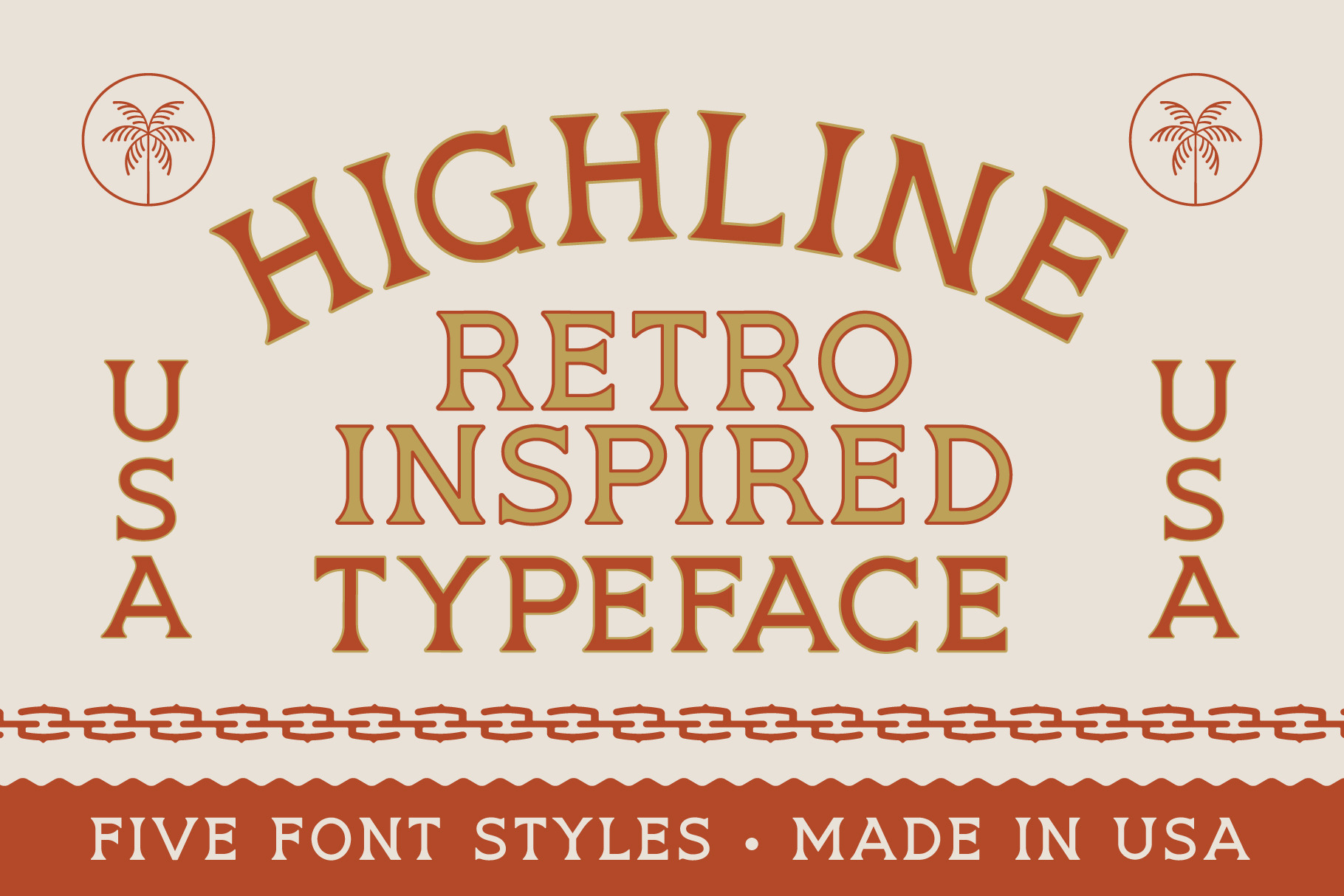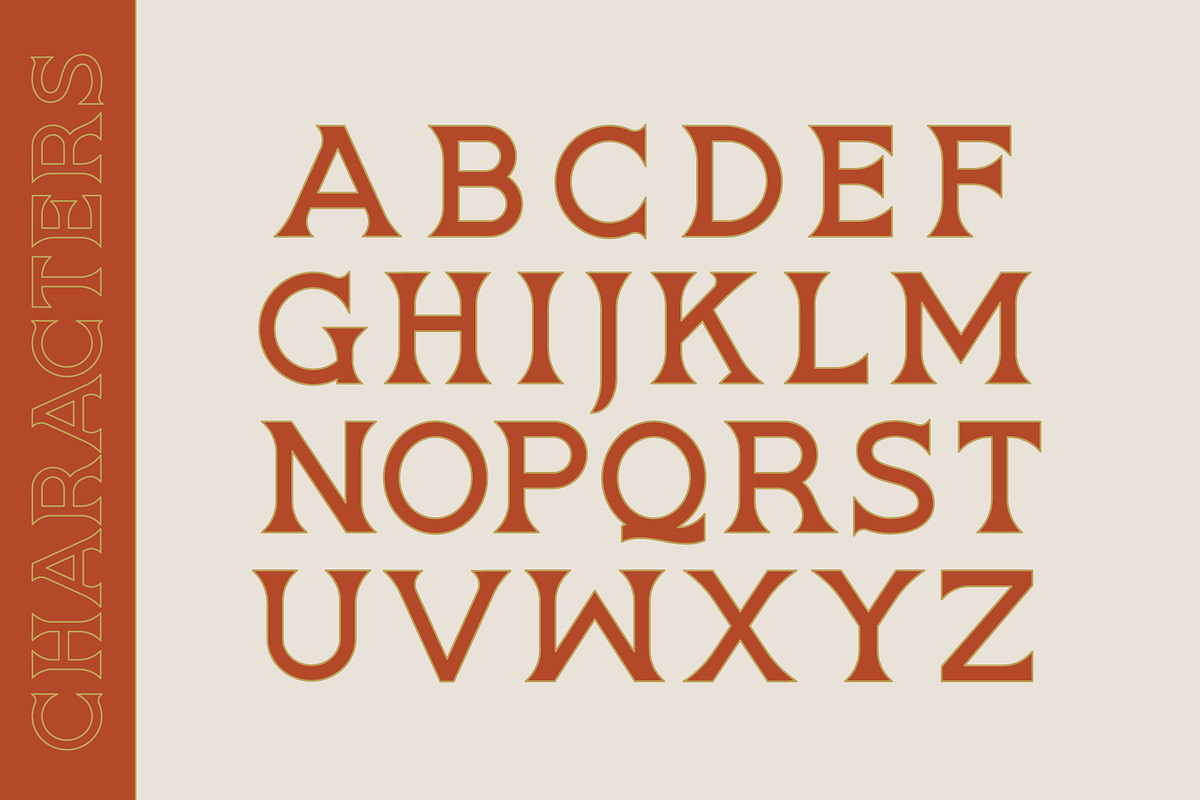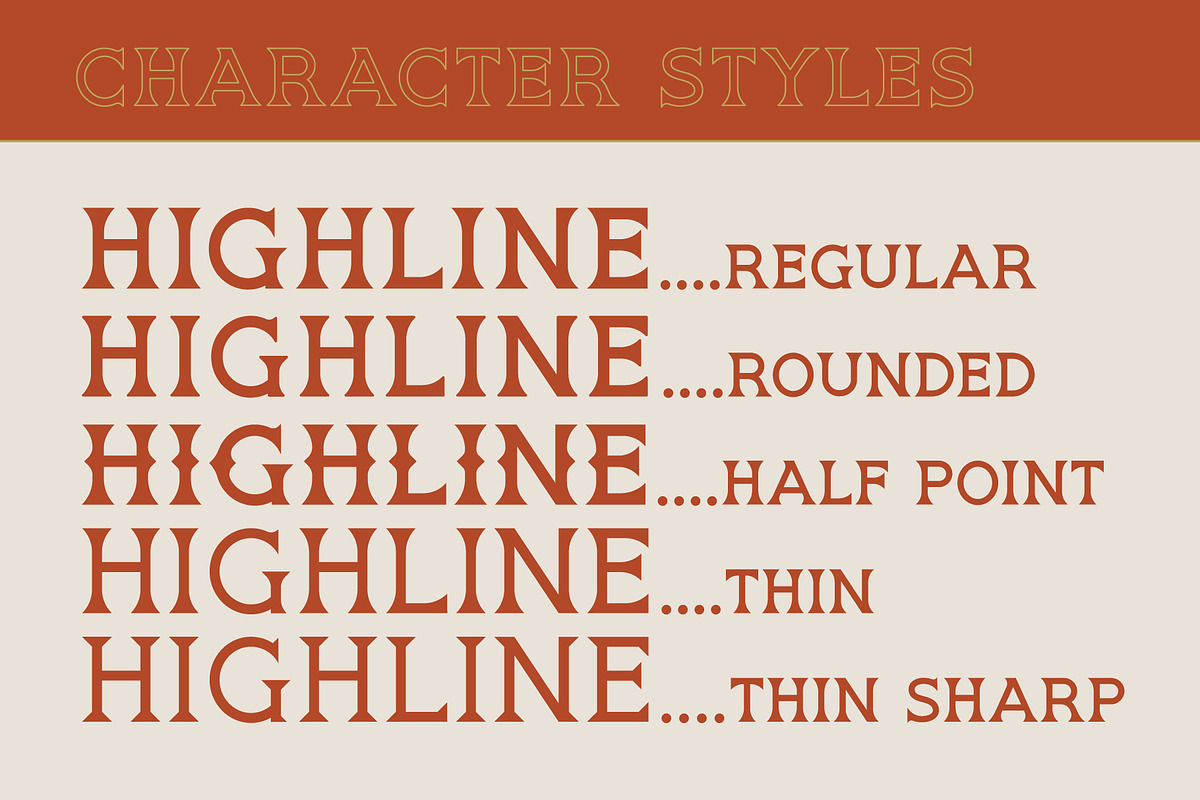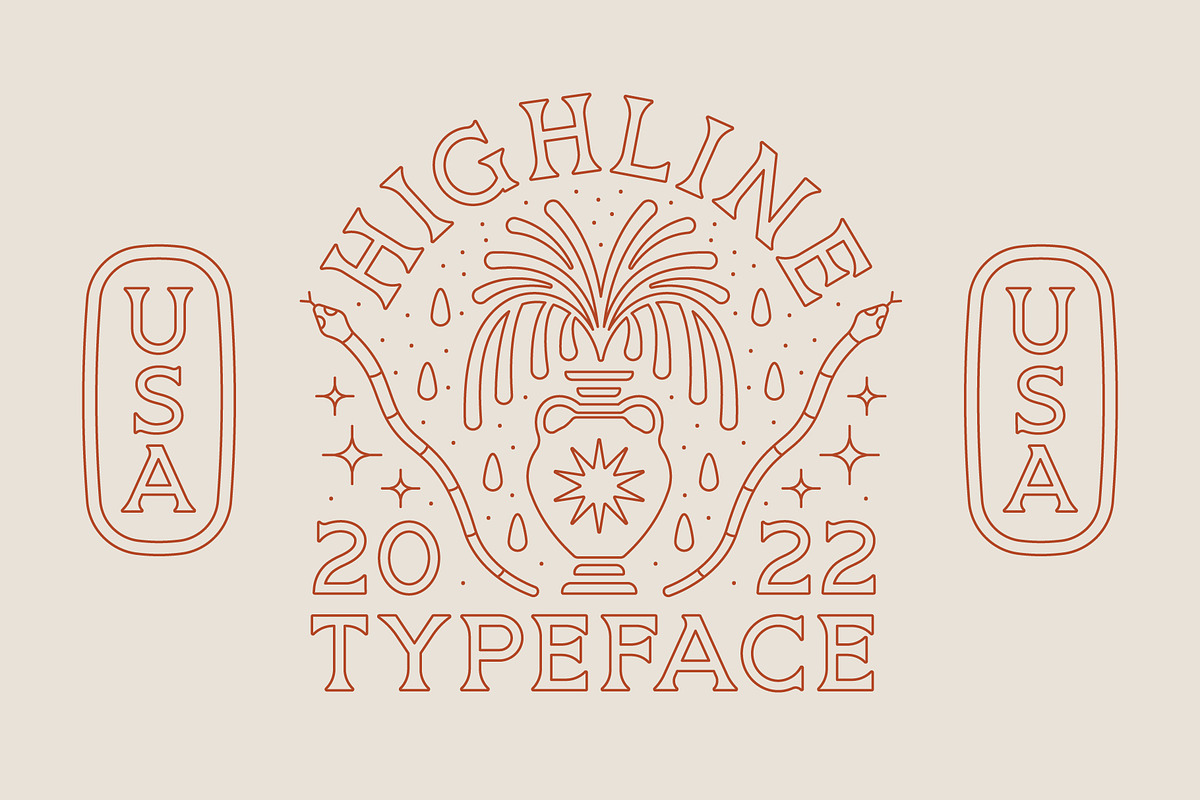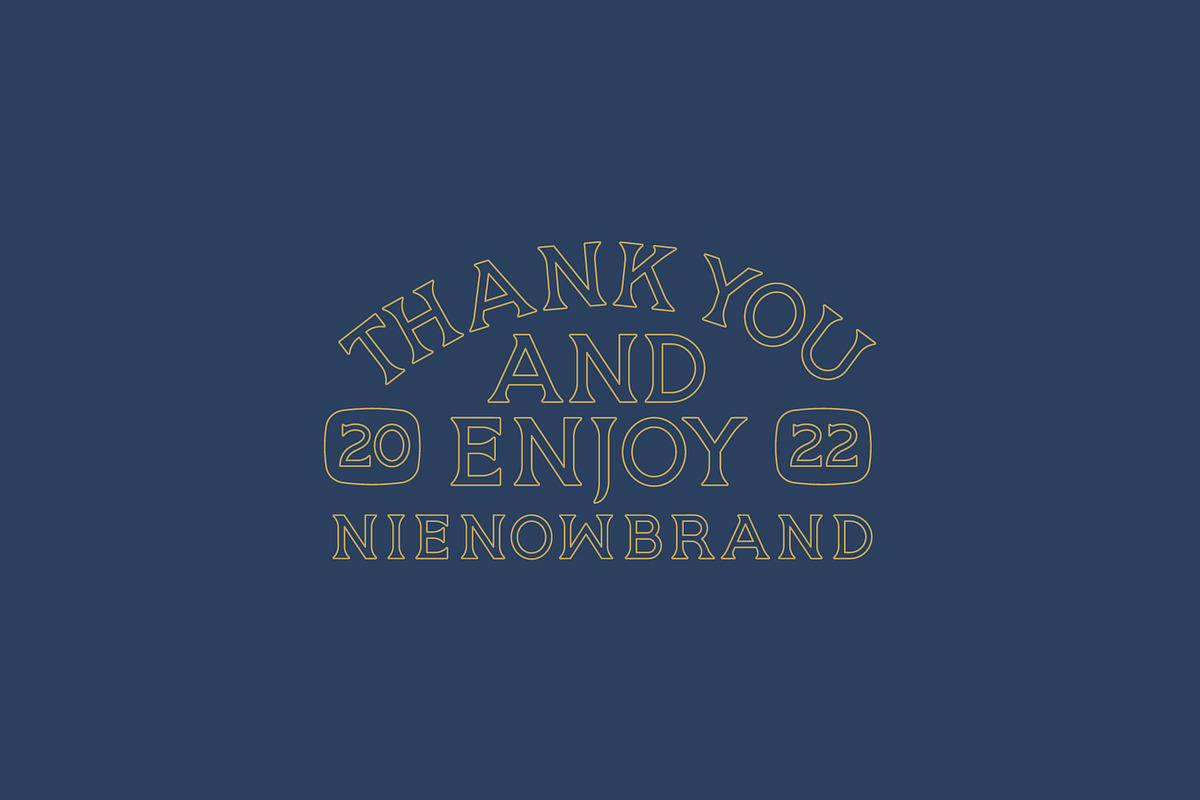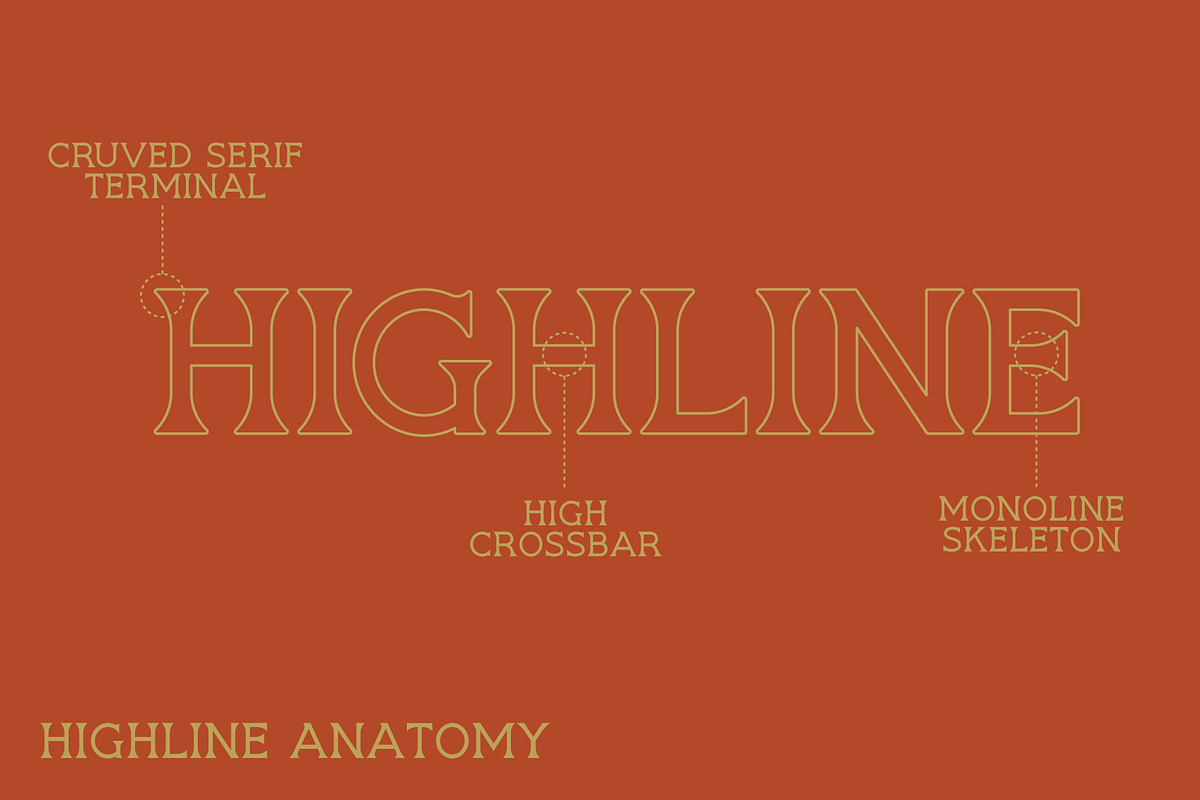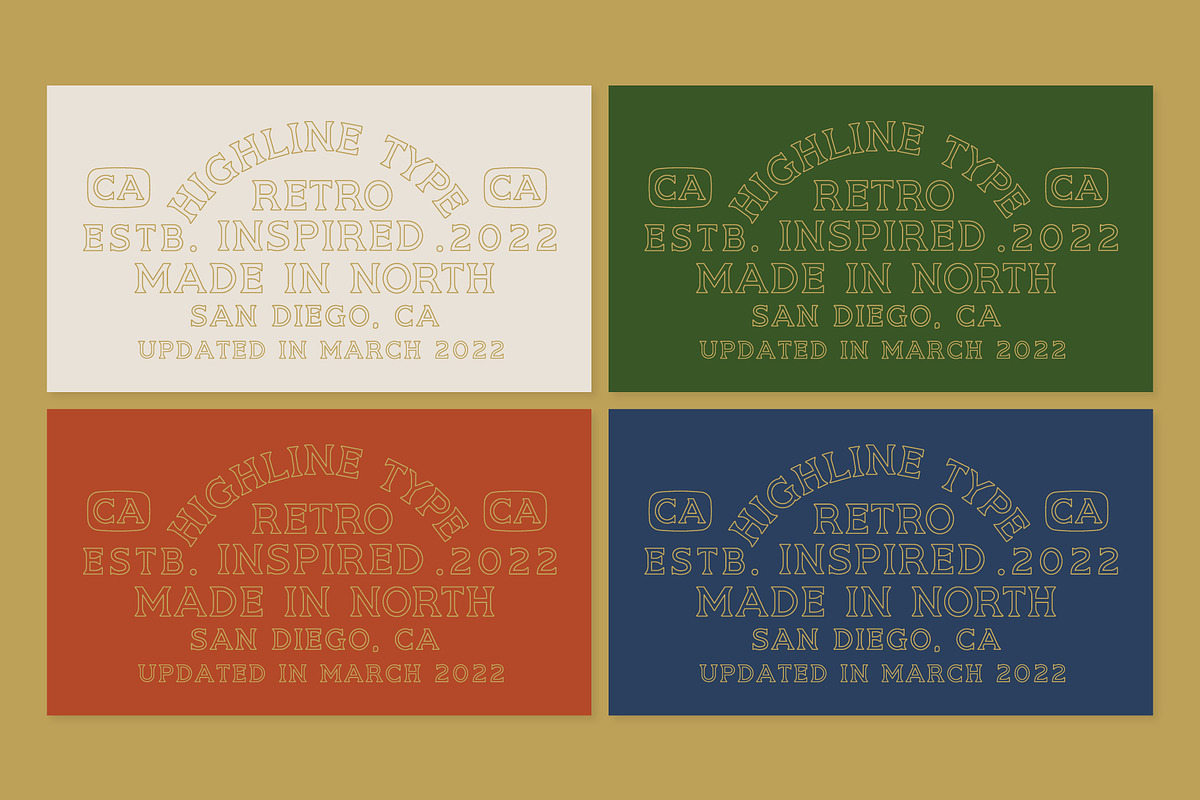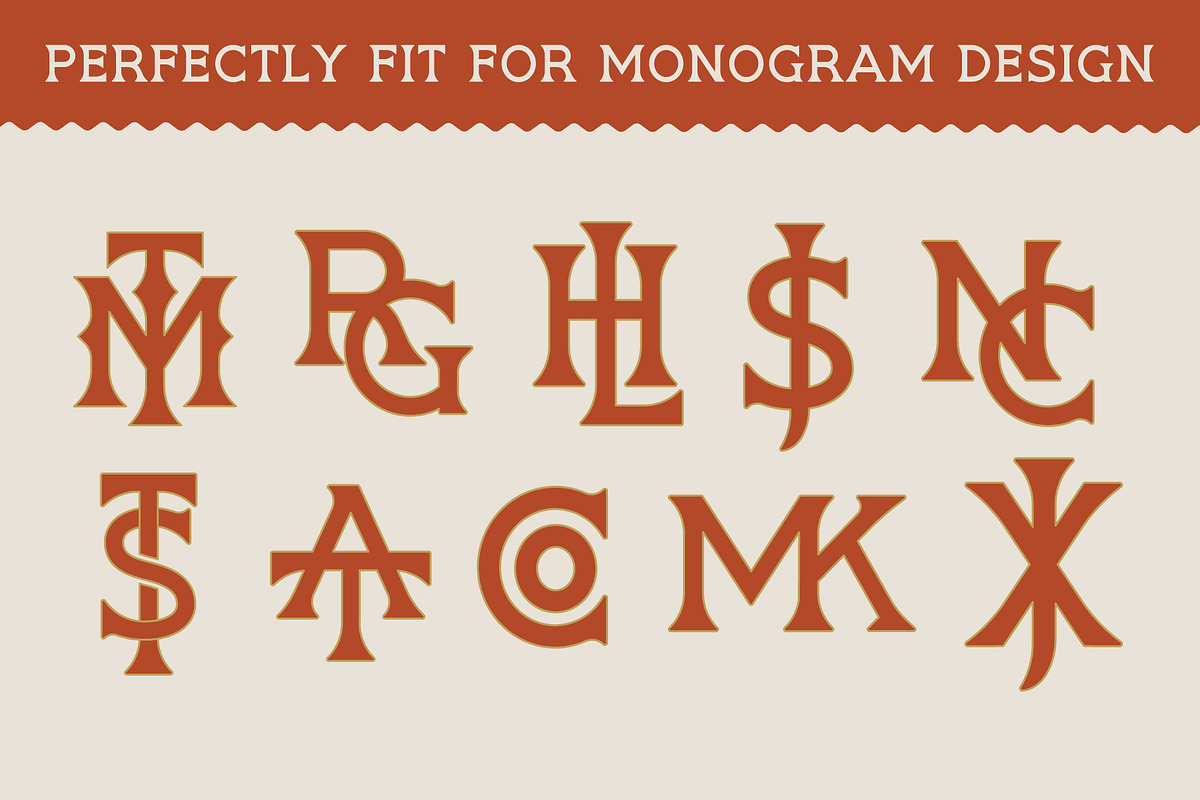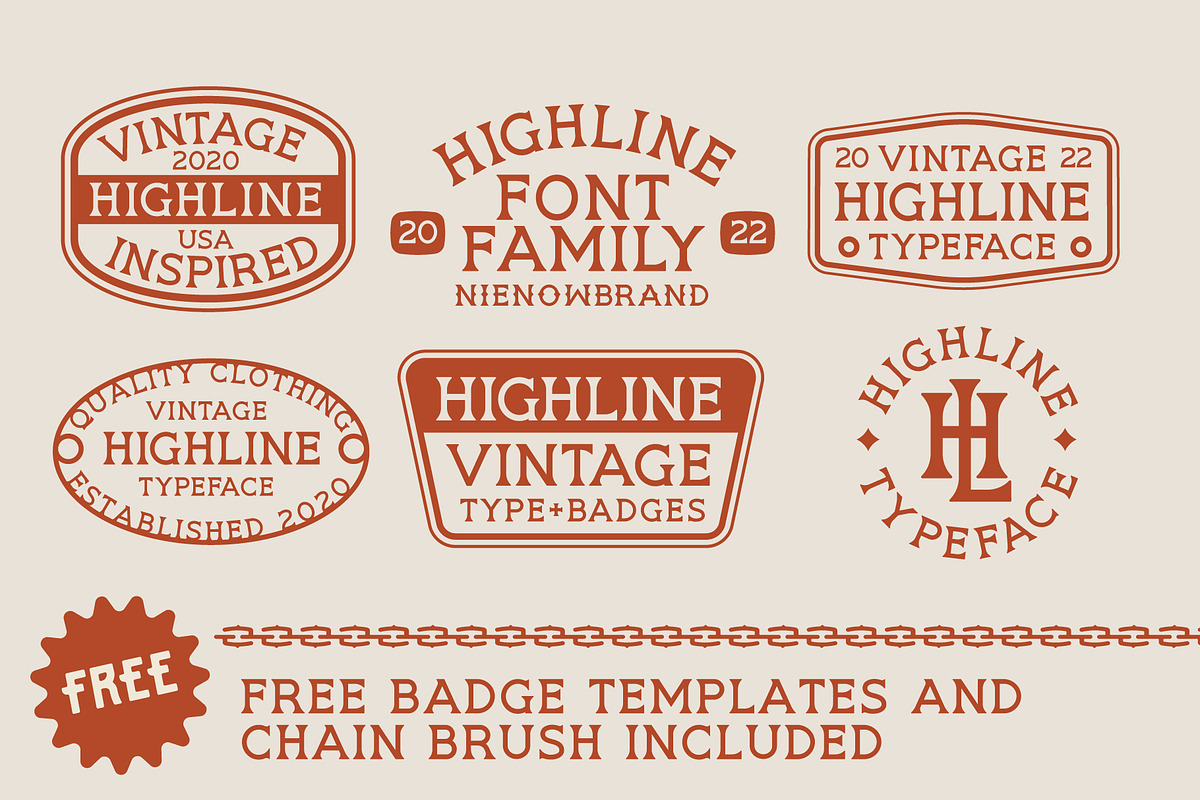
HIGHLINE Font | Vintage Font
- 5 HIGHLINE Type Styles
The HIGHLINE font received it’s name from the high crossbar features shown off in the font. HIGHLINE showcases curved serifs built on a monoline font, making the font suited well for monogram logos. The HIGHLINE font family features 5 unique styles that compliment any retro or modern design or logo.